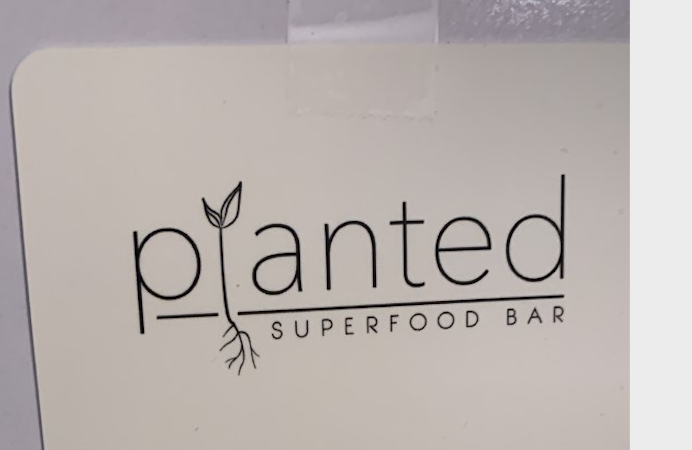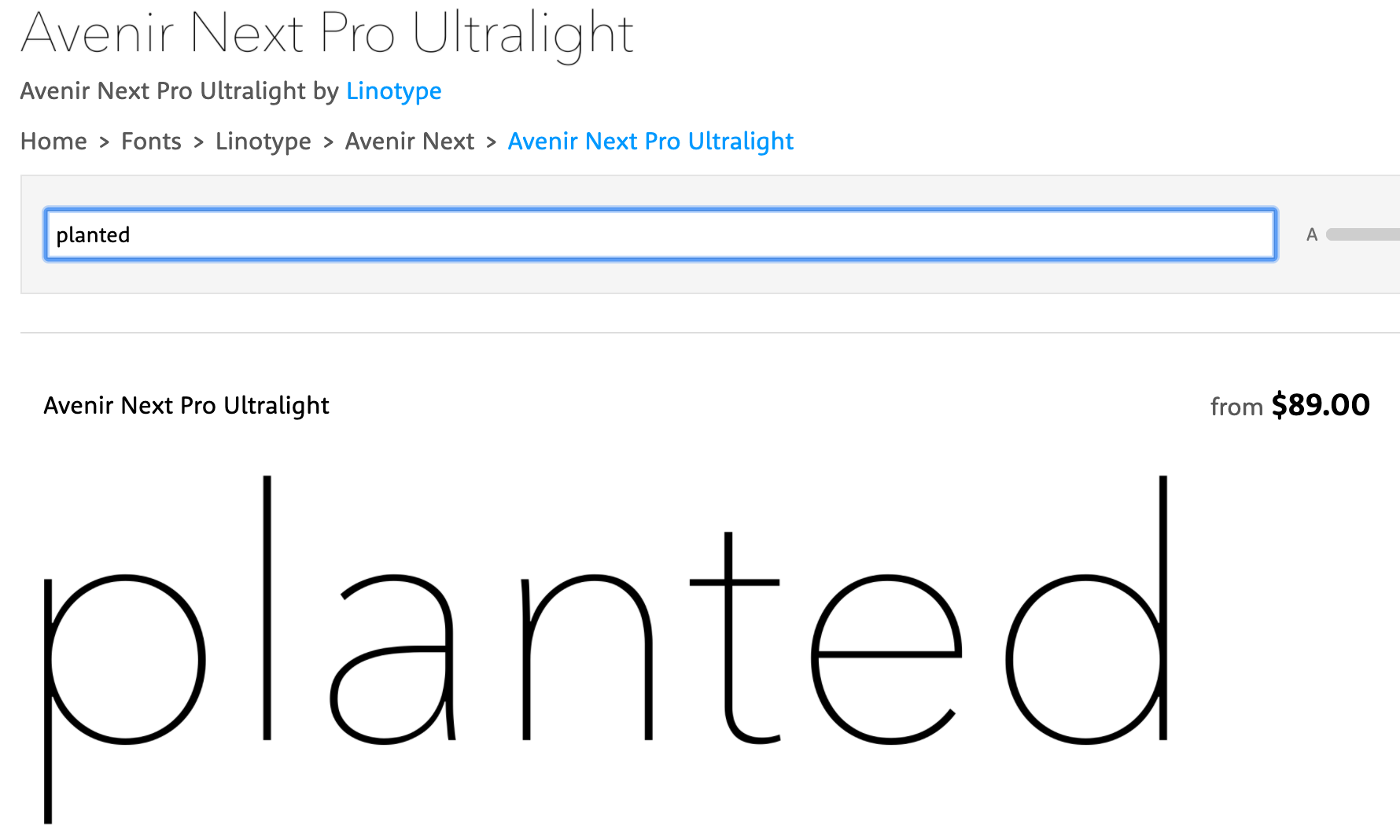
I’m working on this logo reconstruct and the business owner doesn’t know what font this is. Any ideas?
Looks like Avenir Next Pro Ultralight. The smaller text that’s in caps appears to be another typeface. Maybe someone else can identify it.
According to what the font, it the closet thing was Modular Sans Roman. The capital R looked good.
@jminrod Did you post the wrong link? That is most definitely not the font.
You must have missed that Just B posted the correct font of Avenir Next Pro Ultralight. ![]()
I was answering the bottom portion that Just-B had left. He said maybe someone else could find the smaller caps version that said SUPERFOOD BAR.
The link I posted was to a font that I think would be close to the SUPERFOOD BAR font.
Yeah, close is all I could get as well. It’s similar to several different typefaces from Avant Garde to Futura to the one you mentioned. The short crossbar in the F, for example, is different from anything I could readily locate.